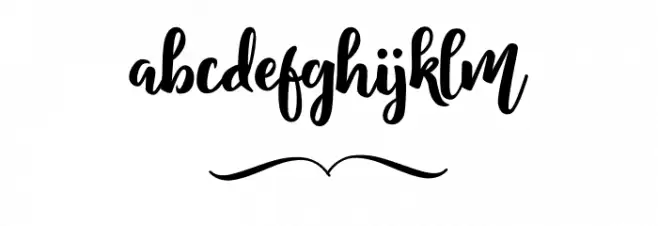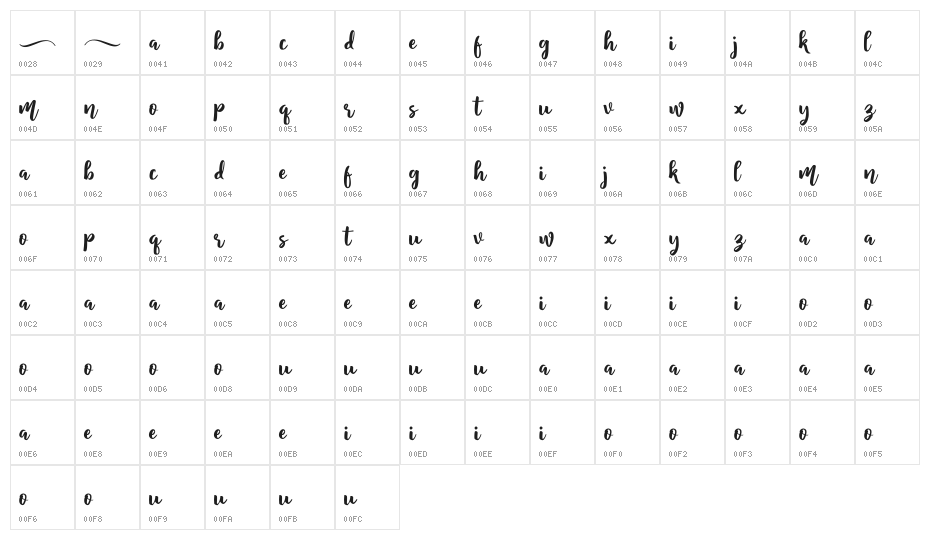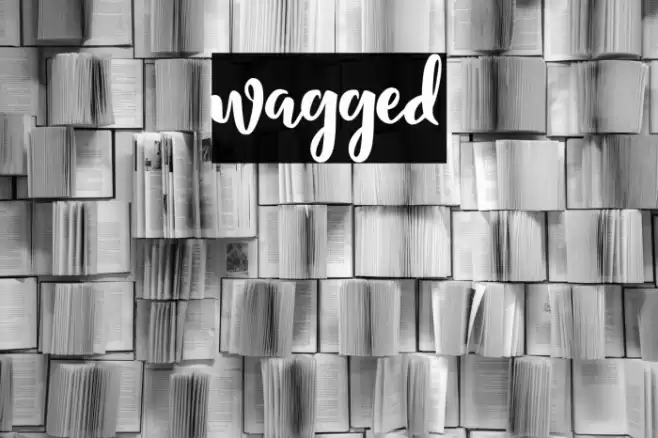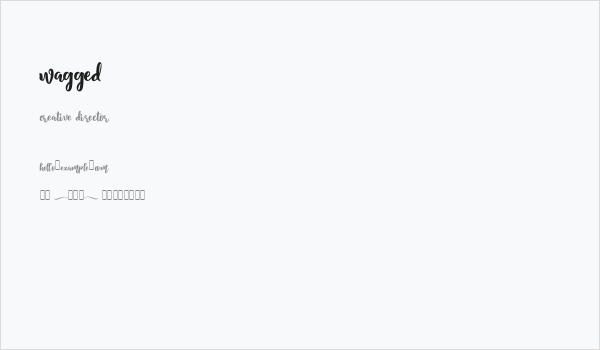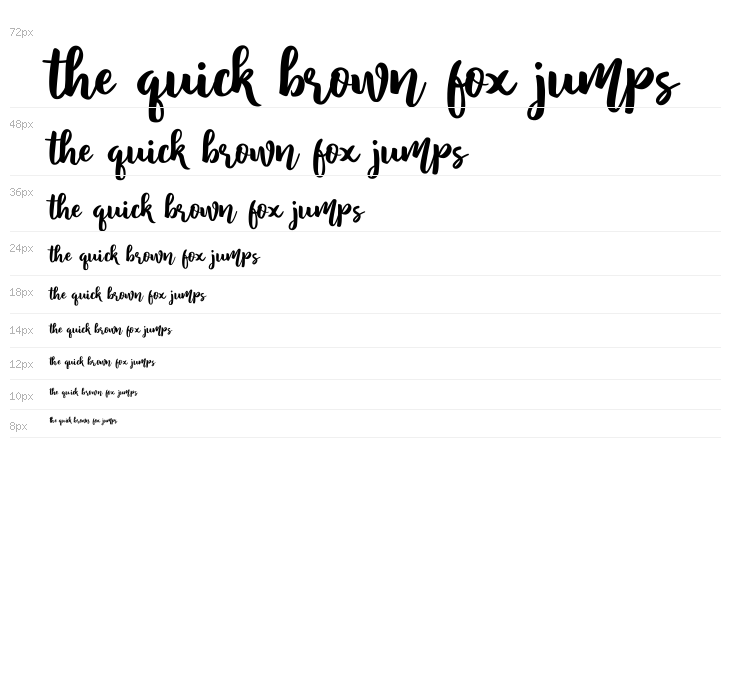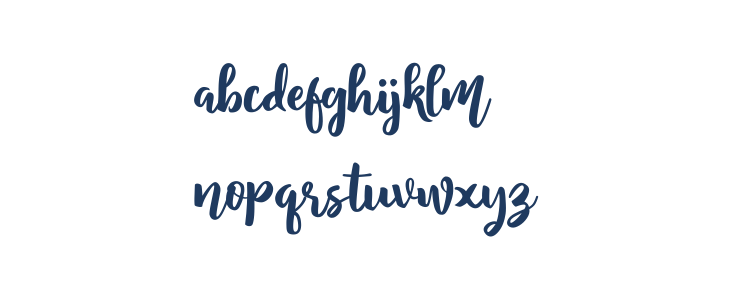
wagged Font
wagged Description
This font features a flowing, cursive style with smooth, rounded edges and a playful, handwritten appearance. The letters are connected, creating a seamless and elegant script that is both legible and stylish. The strokes are bold and consistent, with a medium contrast between thick and thin lines, giving it a dynamic and lively feel. The overall look is modern yet retains a classic charm, making it versatile for various design projects.
| Use Case | Logos, Invitations, Social Media Graphics |
| Proposed Projects | Ideal for wedding invitations, greeting cards, branding, and social media graphics. |